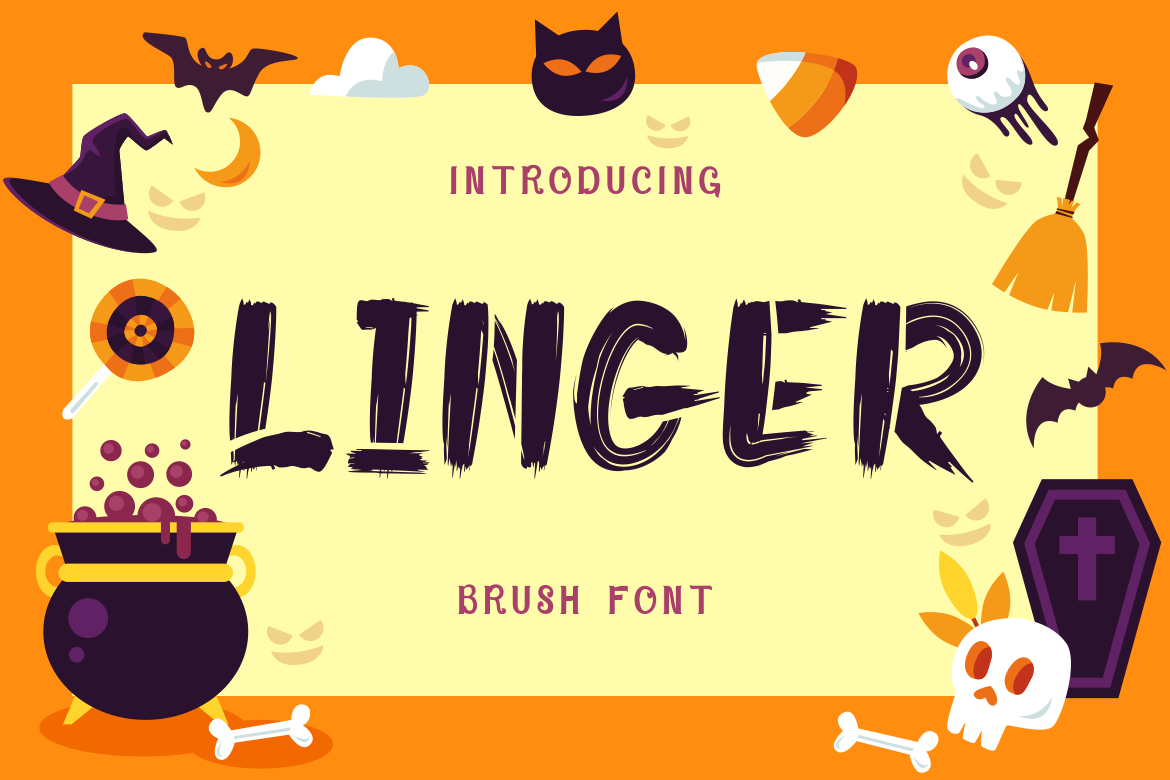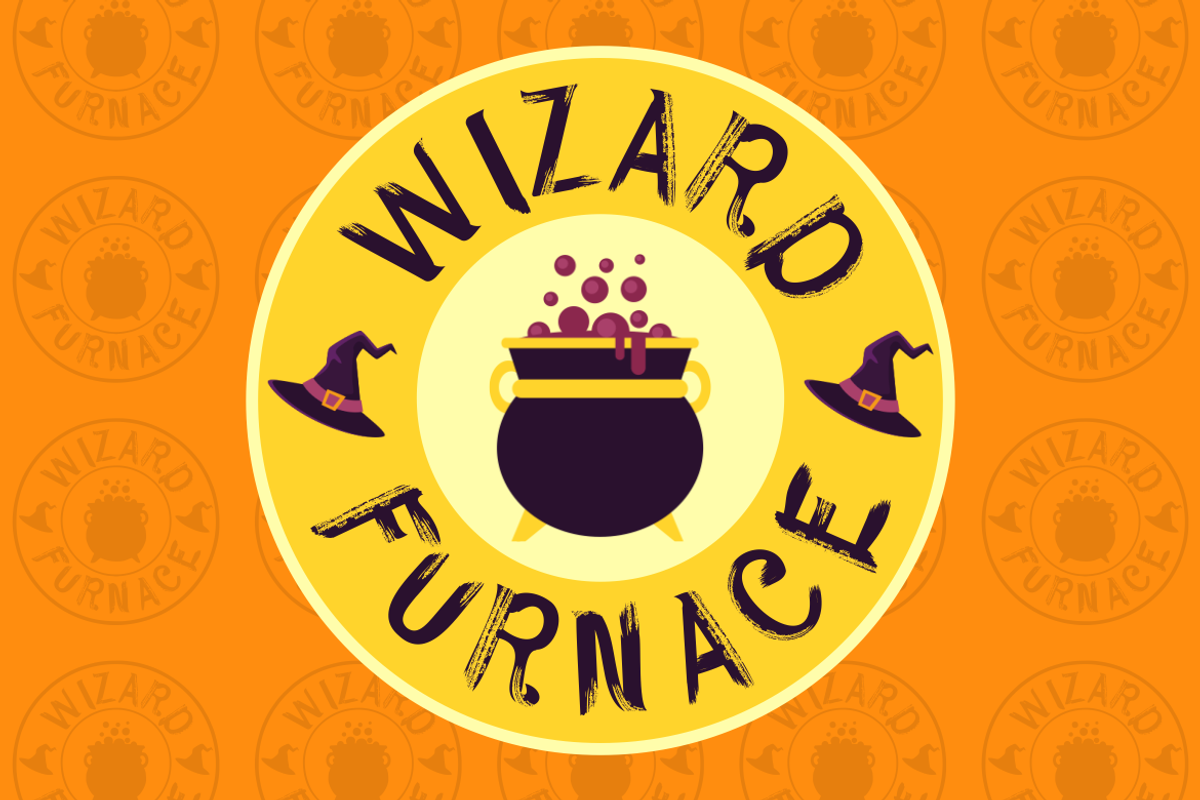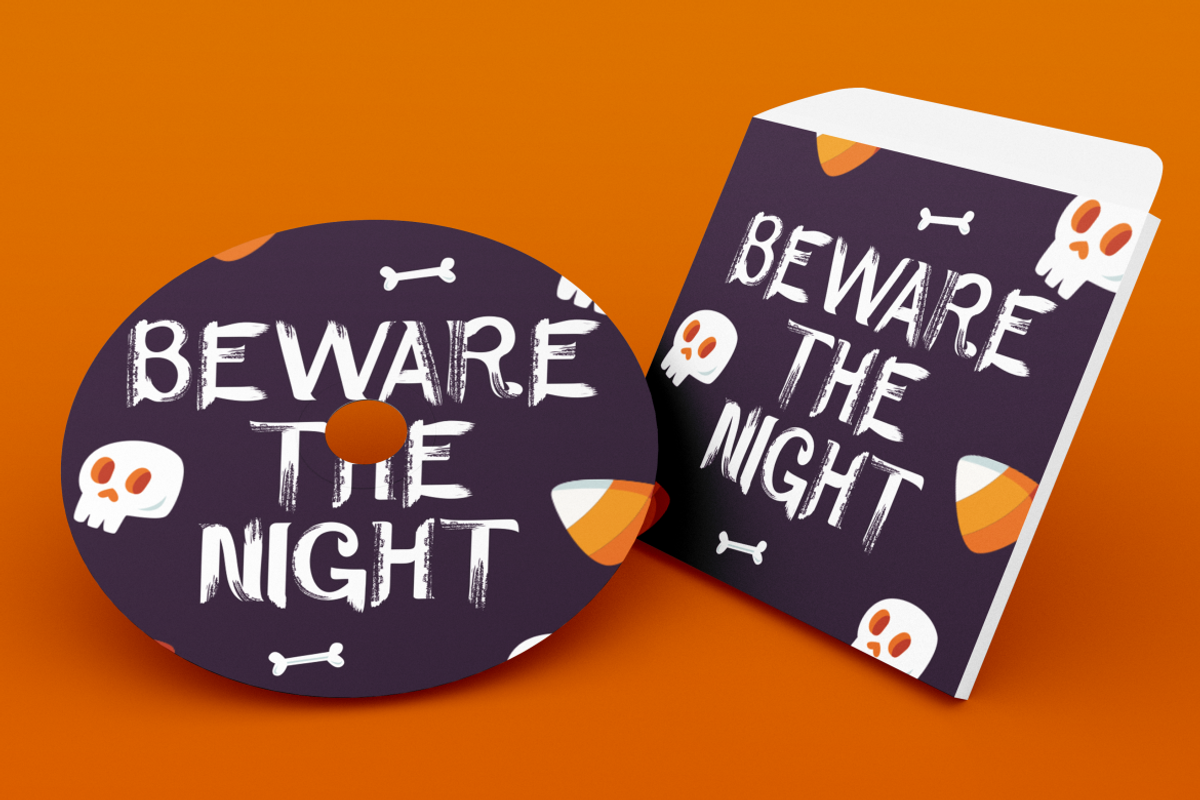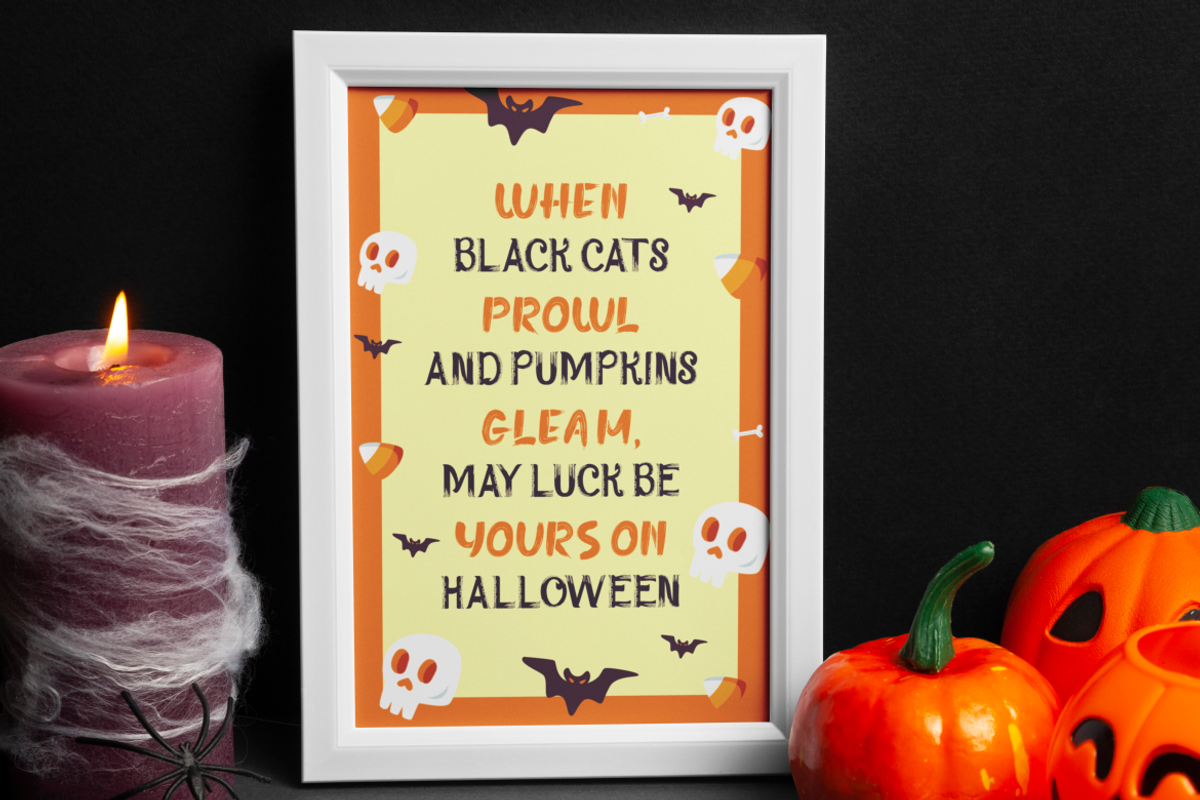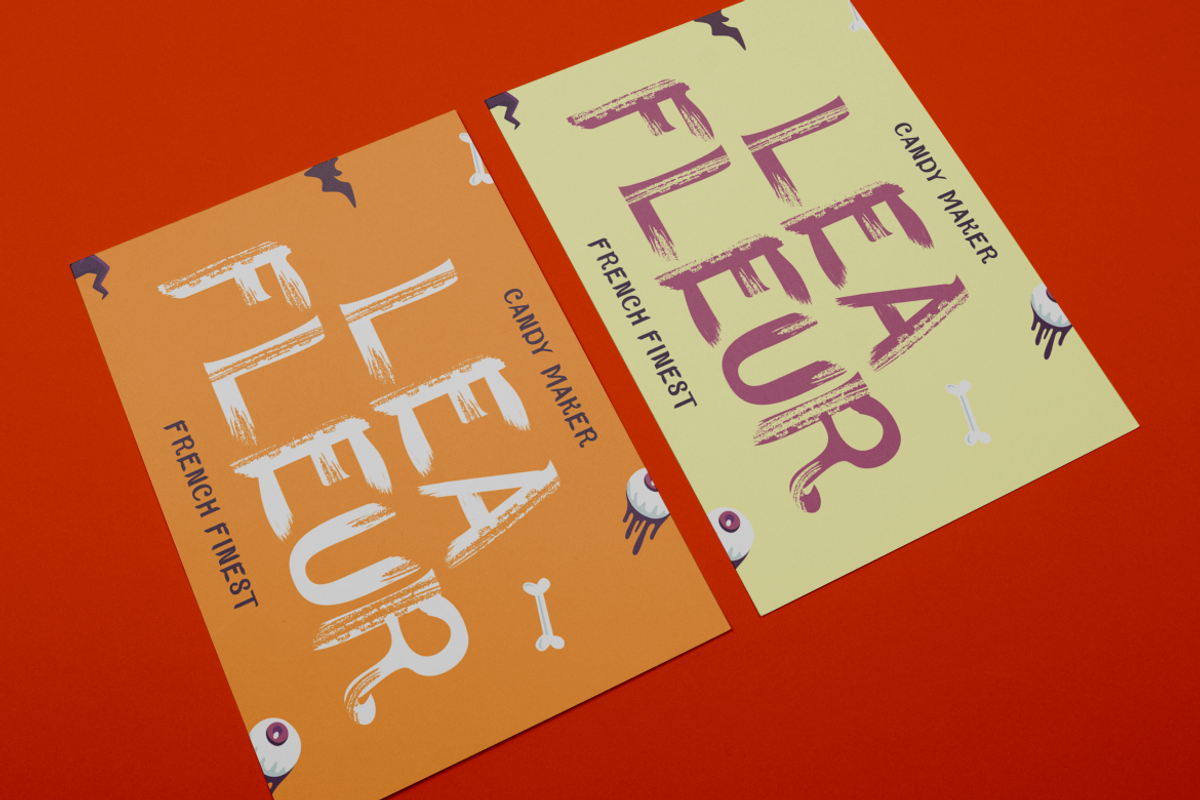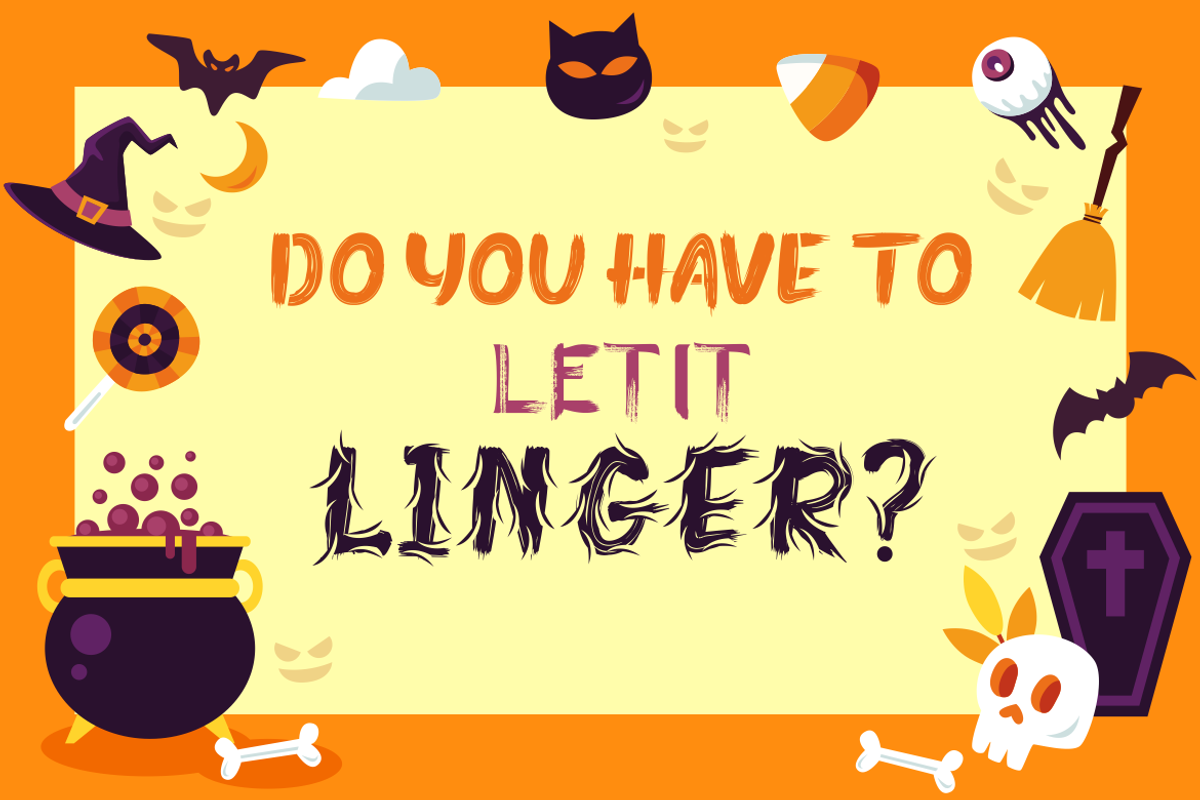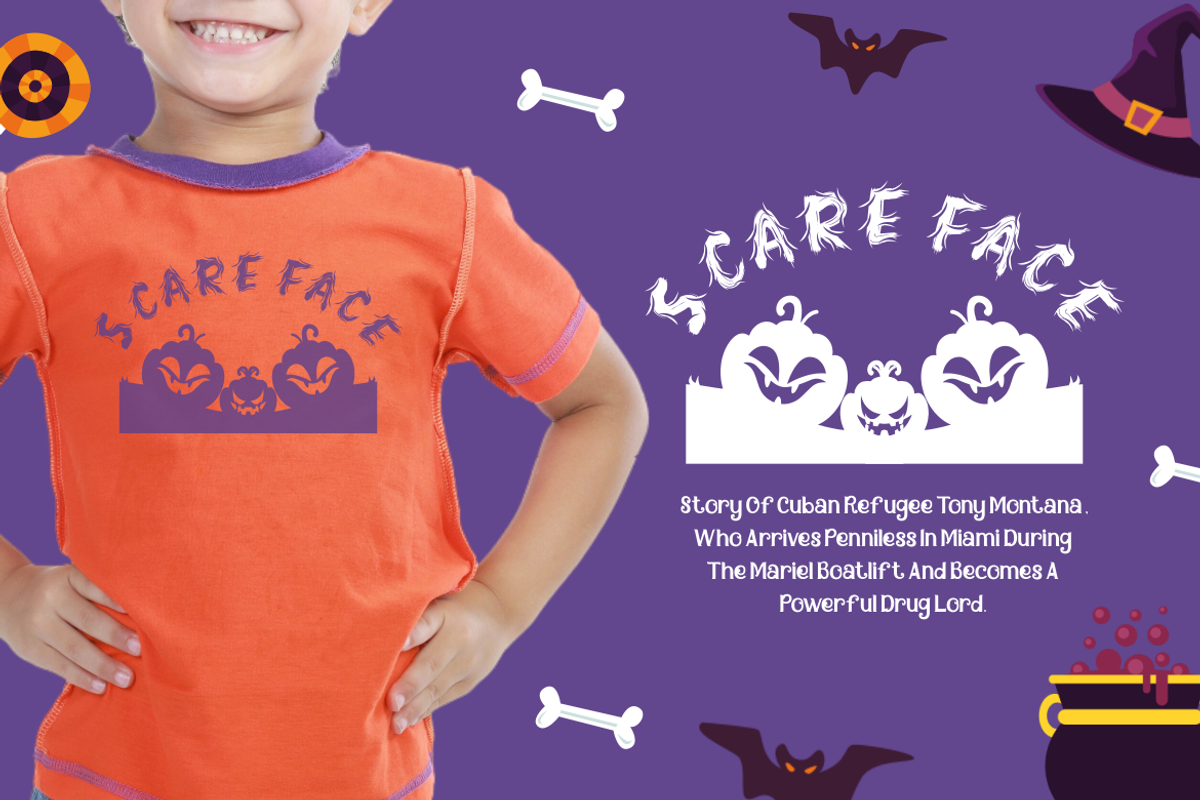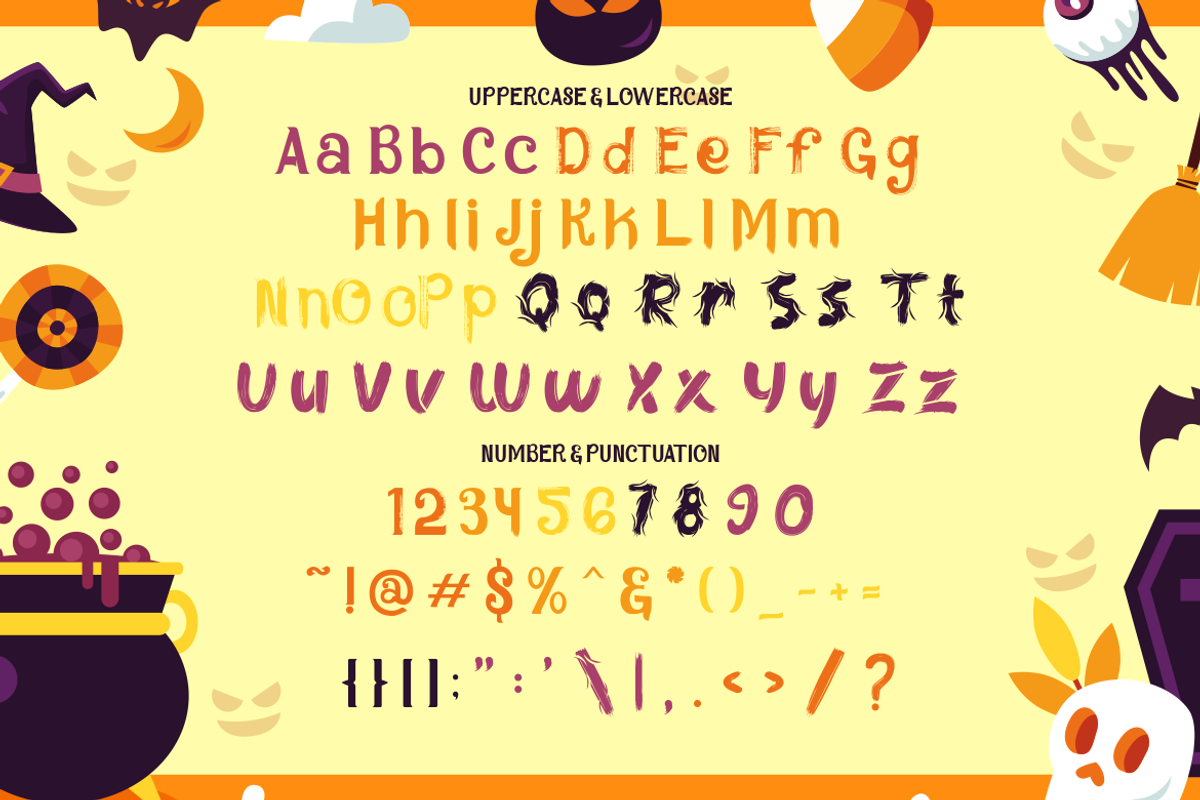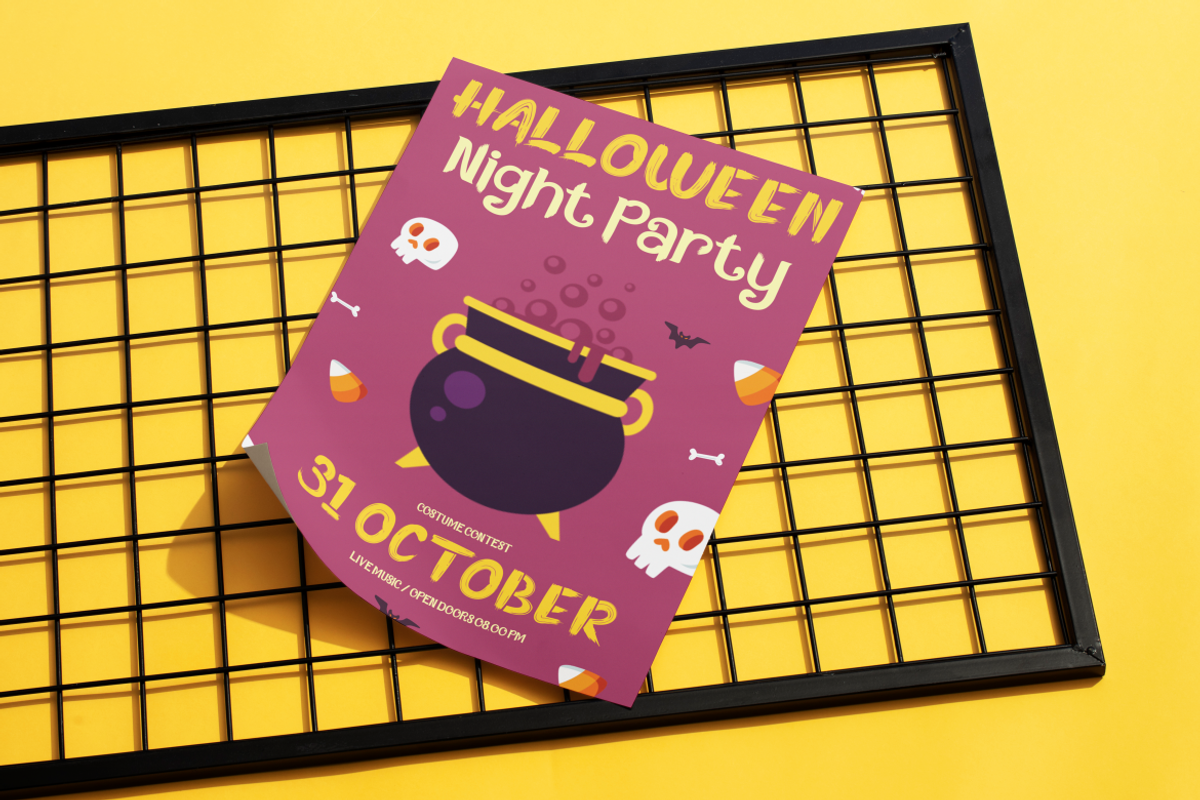
Linger - Brush Font
Introducing Linger - Brush Font, the perfect typeface for your next creative project. This display font is designed with a rough and textured brush style, evoking a spooky and eerie atmosphere that’s ideal for Halloween-themed designs or anything that requires a touch of horror. The bold, hand-drawn strokes of Linger provide a unique and impactful aesthetic, making it perfect for crafting eye-catching logos, branding materials, and striking posters. Whether you're designing an invitation for a spooky event or creating standout packaging, Linger ensures your text will leave a lasting impression.
Linger’s versatility doesn’t stop there; its rough, organic look makes it suitable for a wide range of applications. From movie titles and book covers to magazine layouts and greeting cards, this font adds a dramatic flair that can transform ordinary text into an extraordinary visual experience. The unique texture of Linger also makes it a great choice for stickers, business cards, and crafting projects. Embrace the spirit of creativity with Linger - Brush Font, and let your designs linger in the minds of your audience.